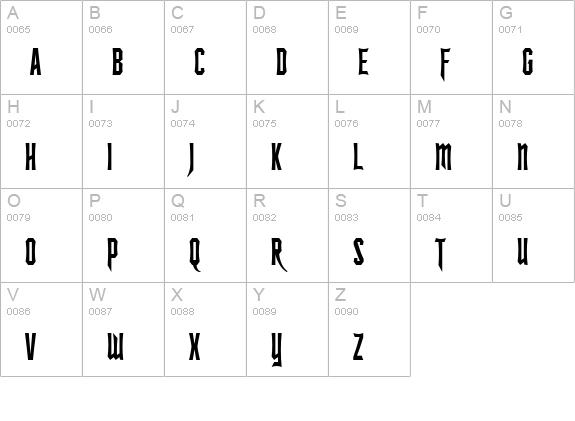
SF Ironsides Condensed Font Details
SF Ironsides Condensed is a distinctive, condensed-width variant in the SF typeface family \xE2\x80\x94 well suited to design and typography projects.
SF Ironsides Condensed is a sleek and modern font that exudes confidence and professionalism. With its condensed proportions and sharp edges, this typeface is perfect for creating eye-catching headlines, bold logos, and striking display designs. The clean and minimalistic aesthetic of SF Ironsides Condensed adds a touch of sophistication to any project. Its carefully crafted letterforms maintain legibility even at small sizes, making it a versatile choice for both print and digital applications. What sets SF Ironsides Condensed apart is its availability as a free download at FontsMarket.com. This means that designers and creatives can easily access this remarkable font without having to worry about any additional costs. Whether you're working on a branding project, a magazine layout, or a website design, SF Ironsides Condensed will elevate your work and leave a lasting impression. Its bold and commanding presence will captivate your audience and ensure that your message is conveyed with utmost clarity. Don't miss the opportunity to enhance your designs with SF Ironsides Condensed. Download this remarkable font for free at FontsMarket.com and unlock a world of creative possibilities.